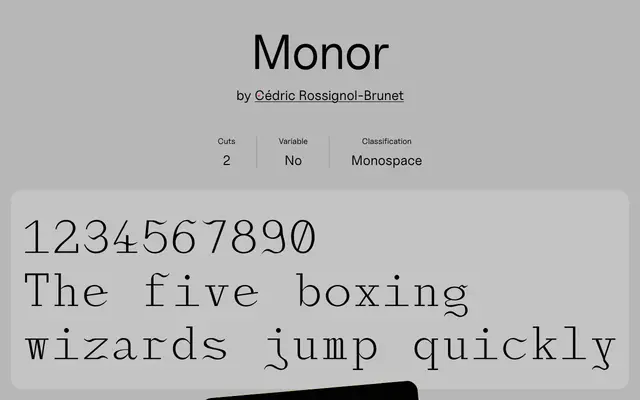
Monor
A two-cut monospaced typeface by Cédric Rossignol-Brunet, released under the SIL Open Font Licence for free commercial and personal use.
A monospaced typeface comprising two cuts, designed by Cédric Rossignol-Brunet and distributed under the SIL Open Font Licence 1.1. The licence permits commercial use, modification and redistribution, with some additional conditions on modified or redistributed versions. No variable font version is available.
Explicitly classified as Monospace by the foundry; a monospaced typeface available in two cuts with no variable axis.